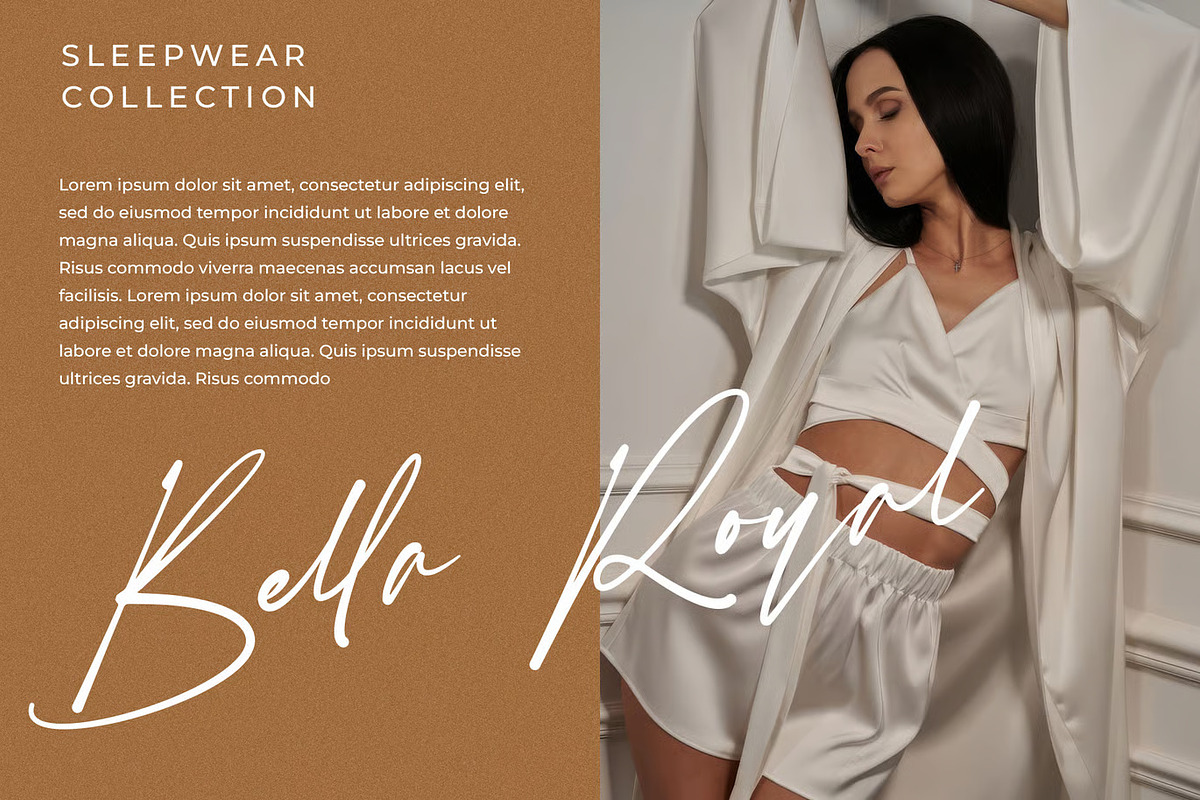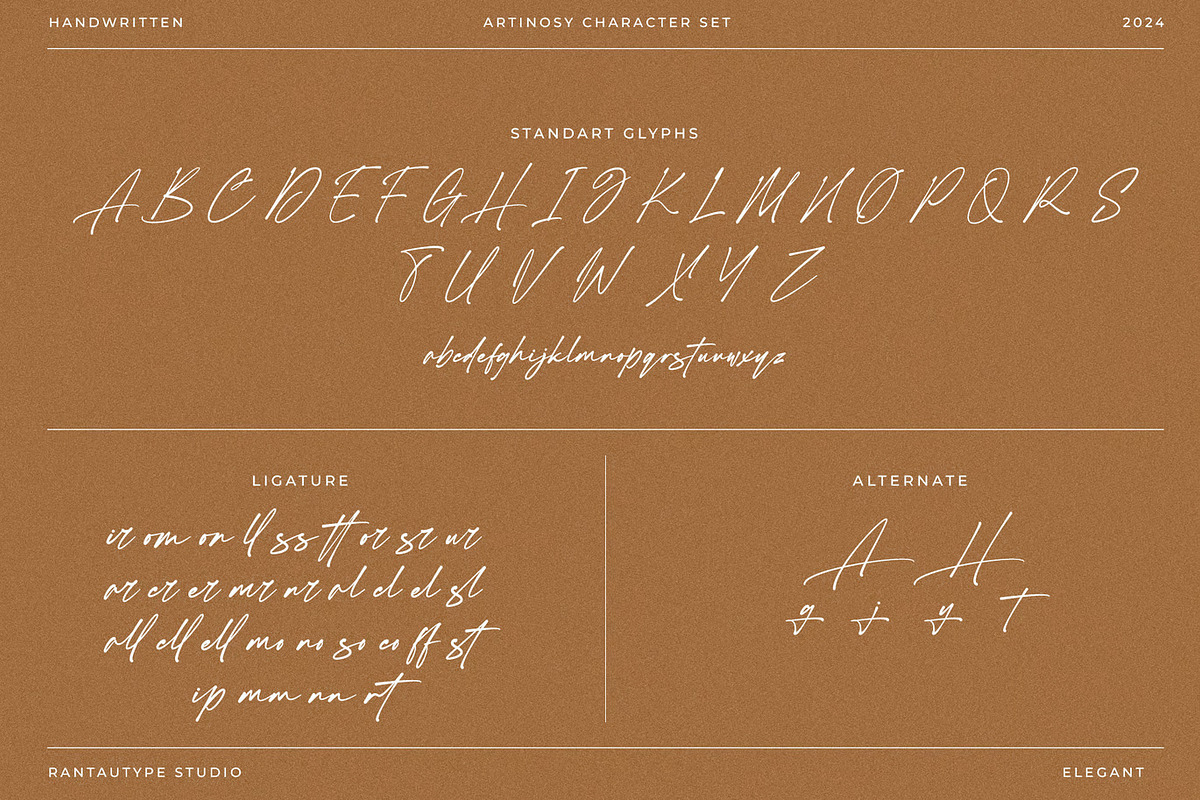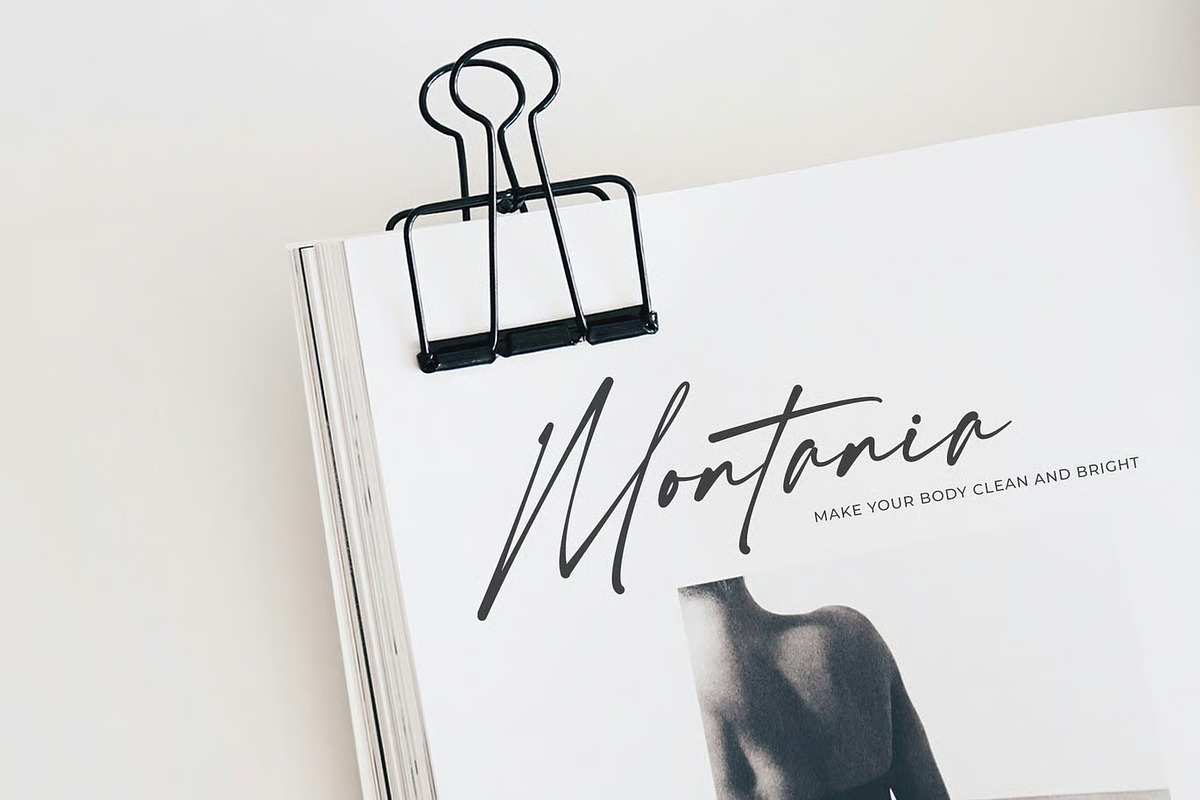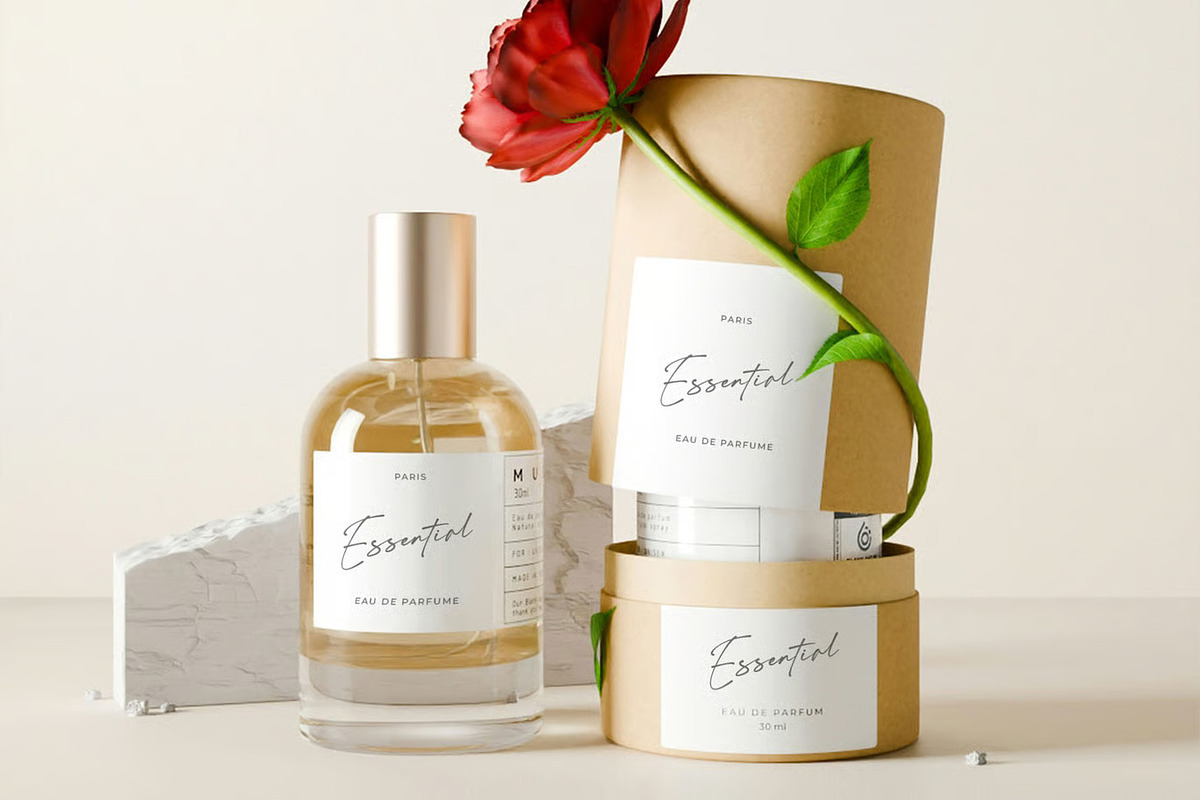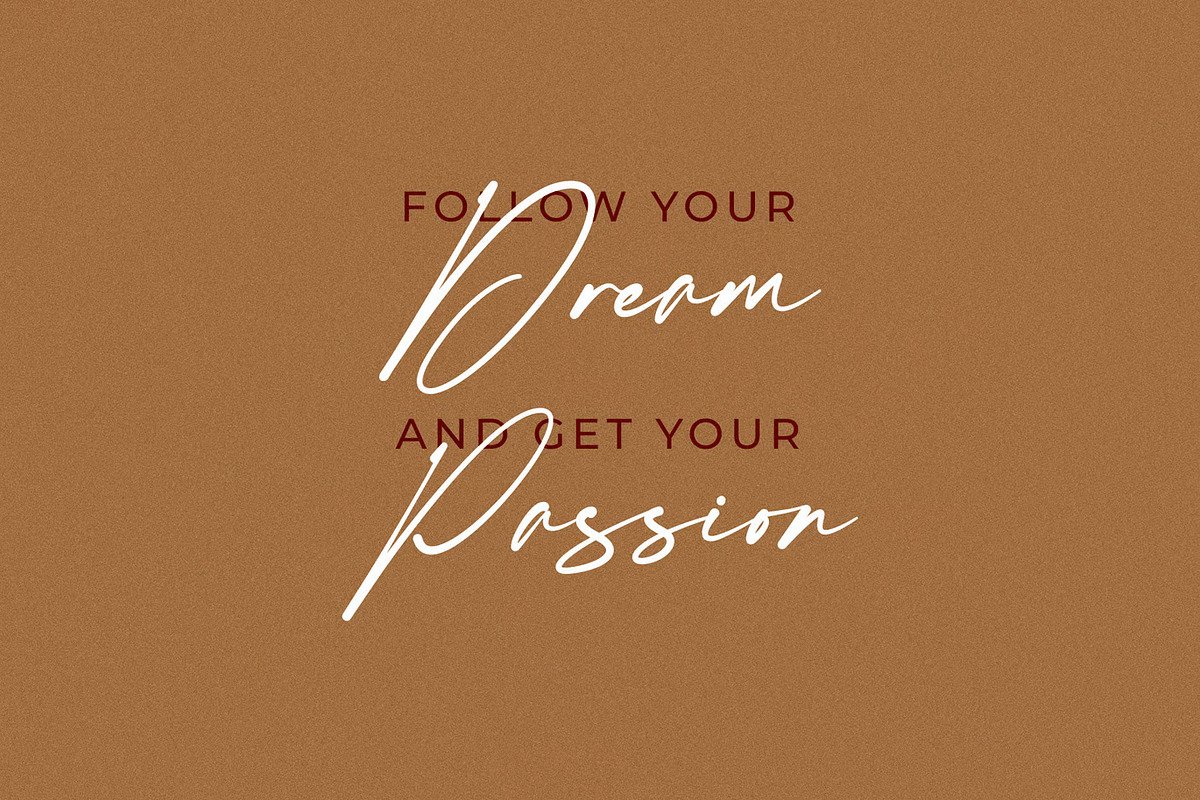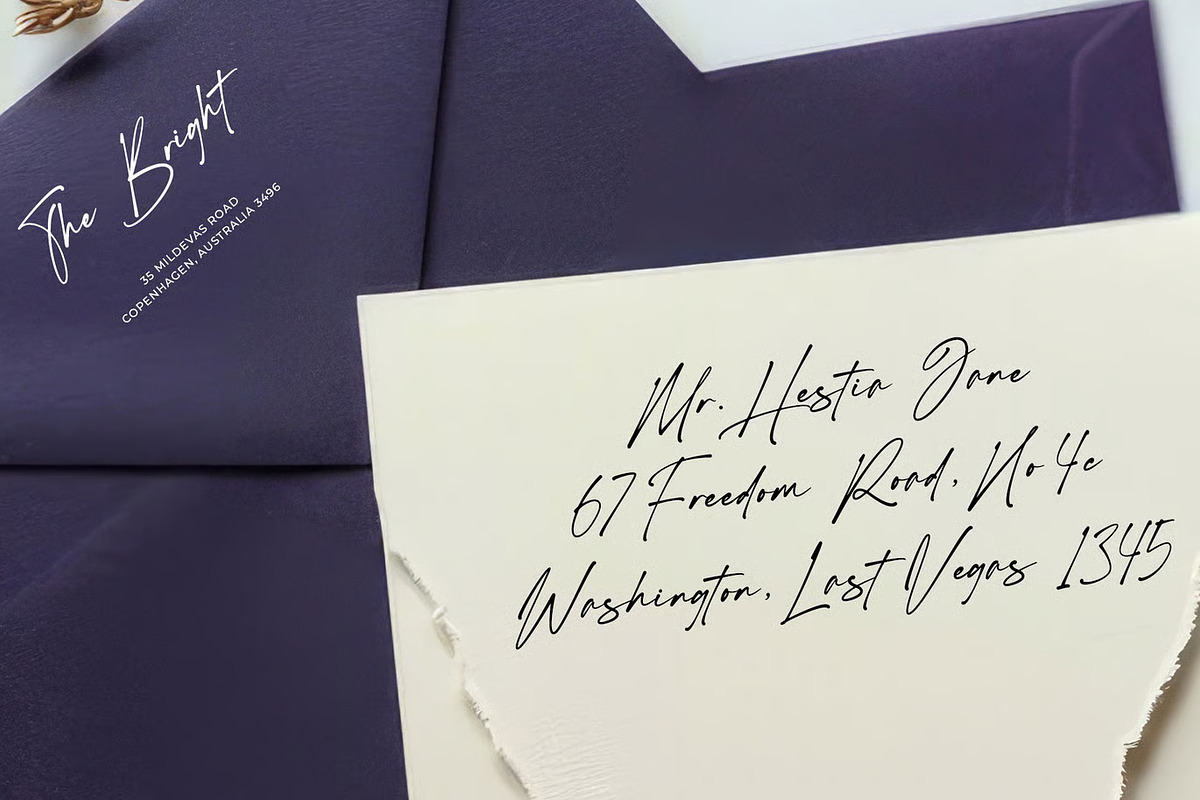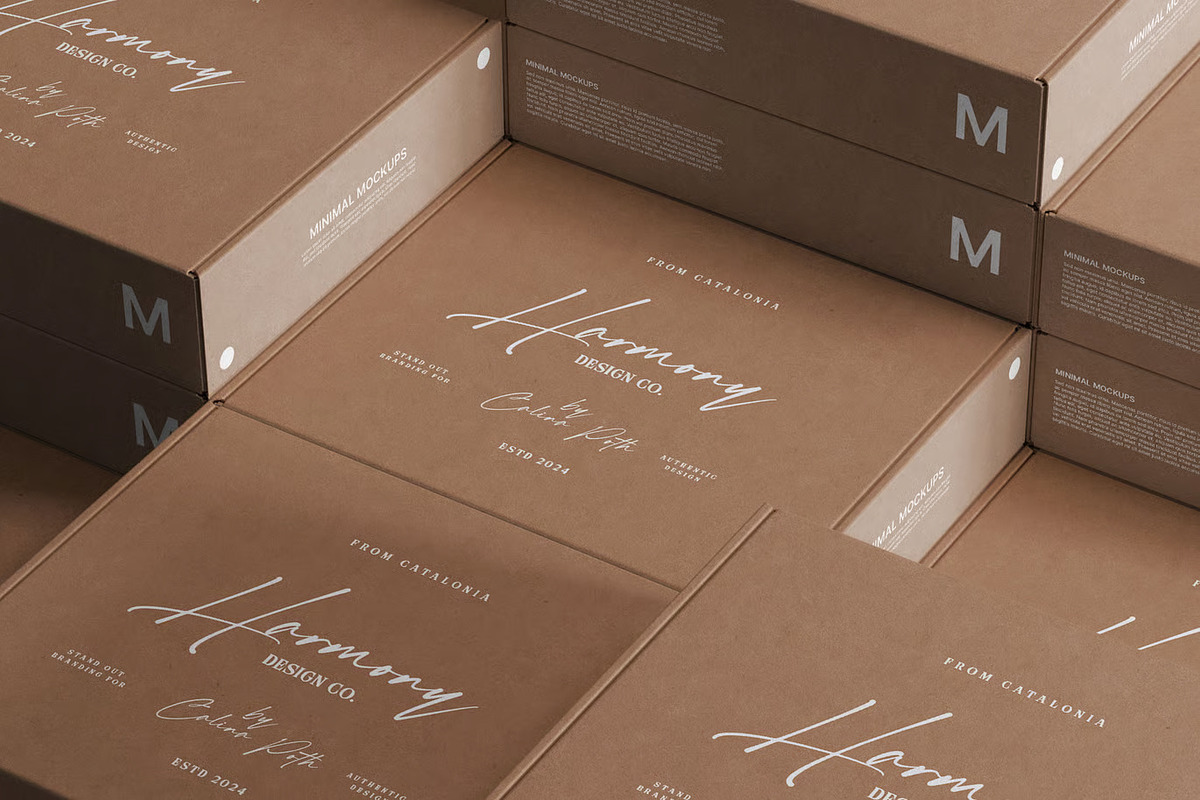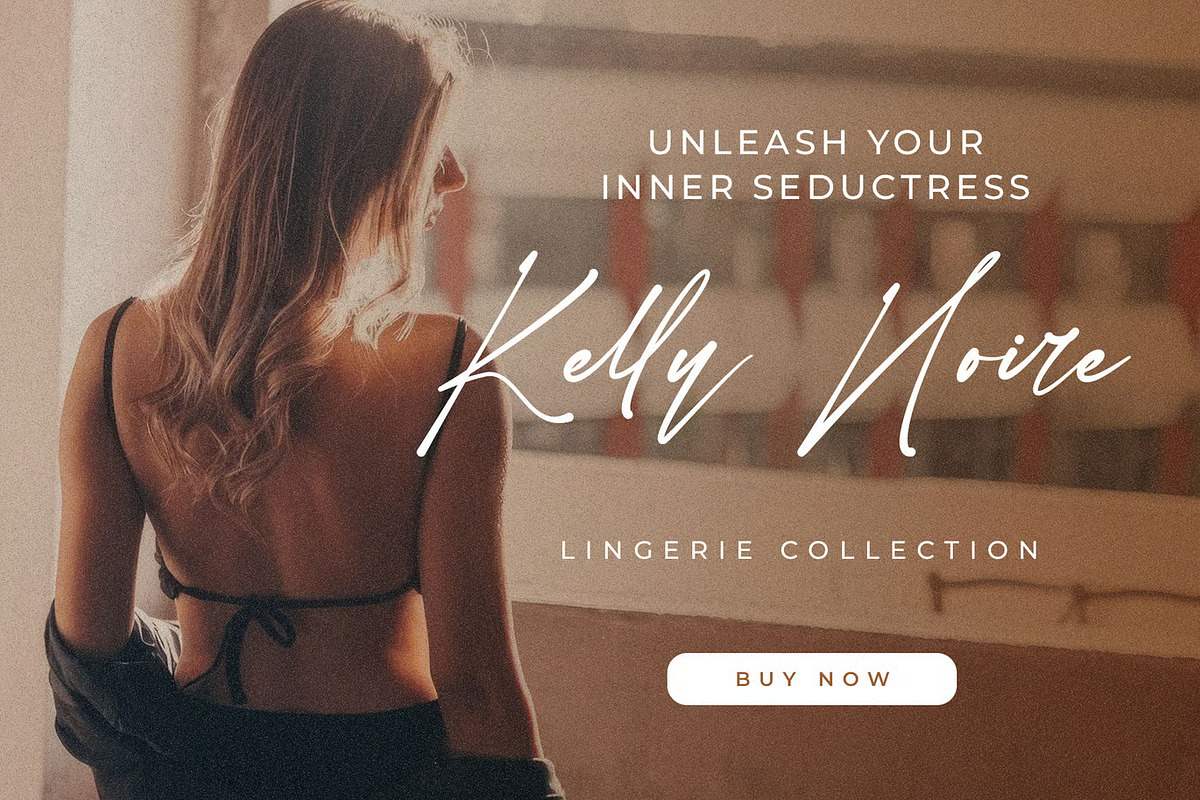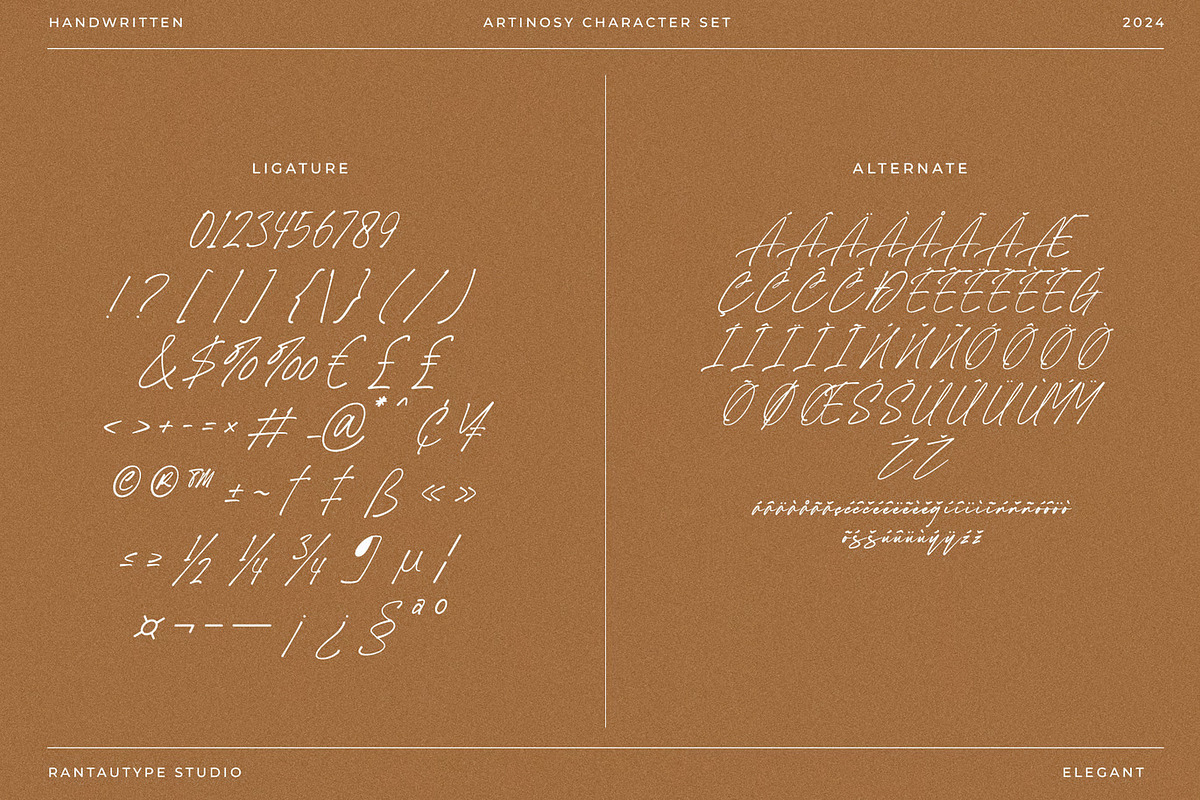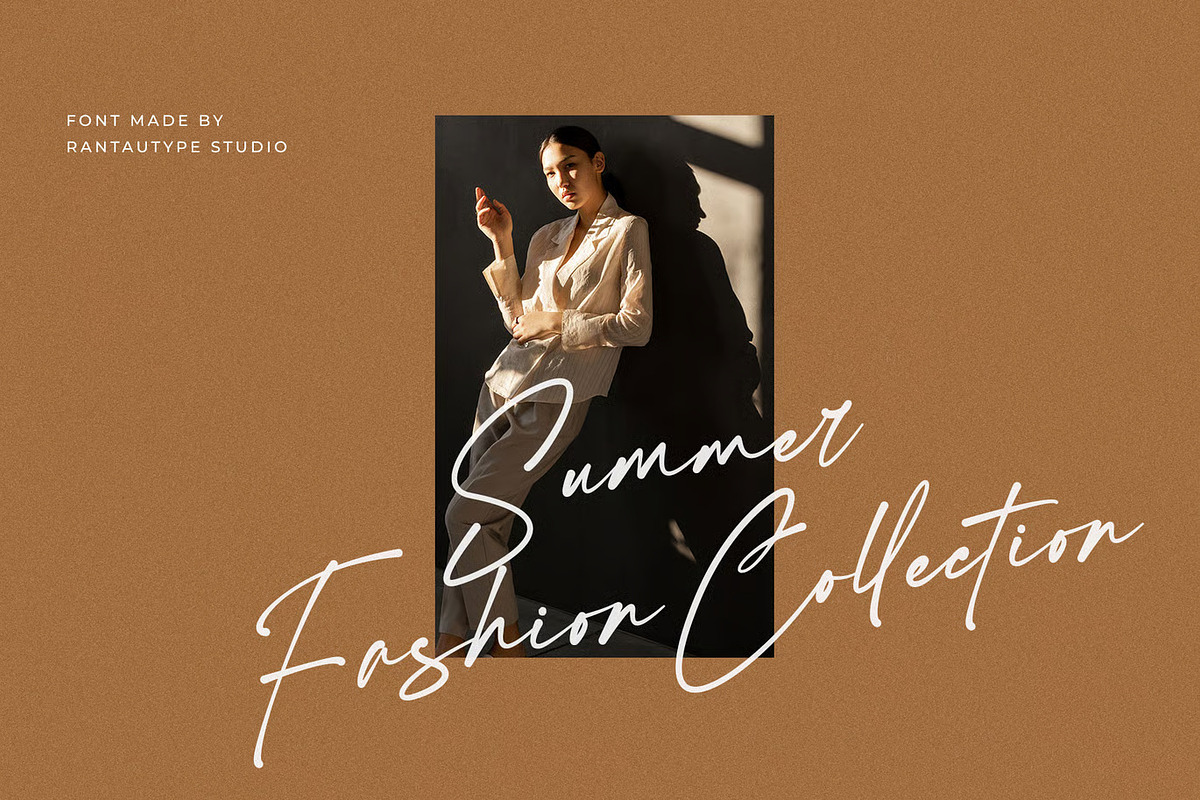
Artinosy an Elegant Handwritten Font
Description
Artinosy is a elegant handwritten font inspire by famous fashion branding. Artinosy embraces elegance the details create a sense of sophistication and femininity.
Artinosy is a perfect choice for any creative endeavor, chic, lifestyle design such as logos, title, watermark on photography, cover, branding, display and magazine, wedding event, corporate brand, quotes, album cover, business card, business project, company branding and more project with handwritten or elegant taste.
- Standar character A-Z and a-z
- Ligature and alternate